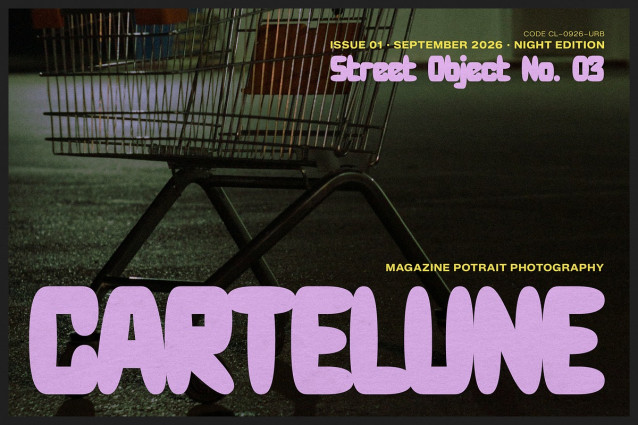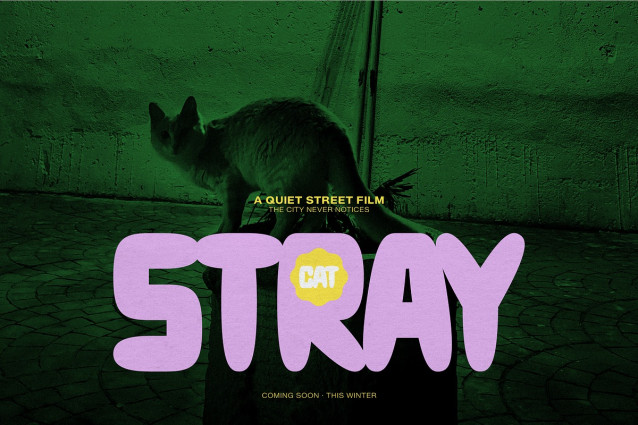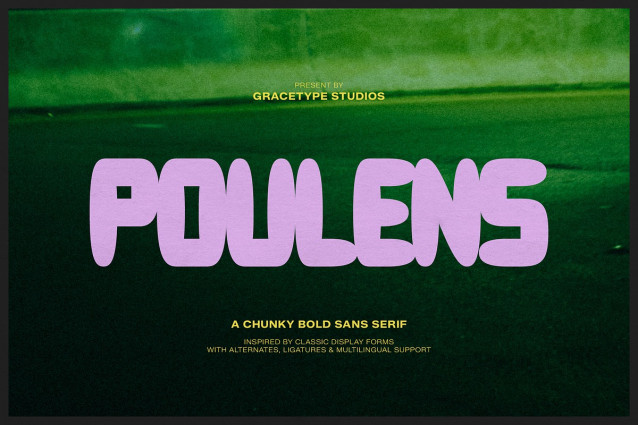
Poulens Font
Poulens Font | Chunky Bold Sans Serif, from Gracetypestudio, suitable for any projects such as: logos, branding projects, homeware designs, product packaging, mugs, quotes, posters, shopping bags, t-shirts, book covers, name card, invitation cards, greeting cards, label, photography, watermark, special events, and all your other lovely projects that need a Sans Serif taste.